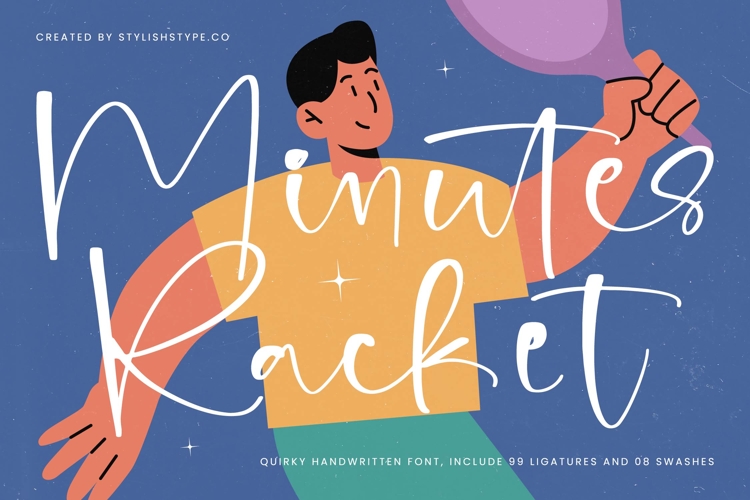
Minutes Racket - Quirky Handwritten Font
Elevate your creative projects with a touch of authentic personality and effortless charm. Minutes Racket - Quirky Handwritten Font offers a distinctive hand-drawn aesthetic that captures a sense of visual energy and warmth. Its slender, elongated letterforms and playful rhythm provide a refreshing departure from rigid digital type, making it an essential tool for designers who prioritize a human-centric design approach.
This versatile typeface is the ultimate solution for brands seeking a relatable and contemporary connection with their audience. Minutes Racket - Quirky Handwritten Font is perfect for lifestyle packaging, social media graphics, and creative branding projects that require a signature look. Whether you are designing personalized stationery, bold editorial headers, or modern apparel prints, this font ensures your message stands out with a unique, artisanal flair.
Unlock unparalleled design flexibility with a robust set of OpenType features including 99 custom ligatures and 8 decorative swashes. These elements allow for a seamless flow and a truly bespoke appearance in every composition. With its extensive multilingual support, Minutes Racket - Quirky Handwritten Font adapts seamlessly across global markets, making it incredibly versatile for international projects and diverse marketing campaigns.
Transform your digital and print assets into captivating works of art that resonate with modern consumers. By choosing Minutes Racket - Quirky Handwritten Font, you are investing in a high-contrast script that balances quirky character with professional execution. Secure this essential typographic asset today to infuse your portfolio with impactful design and a sophisticated handcrafted vibe that leaves a lasting impression.